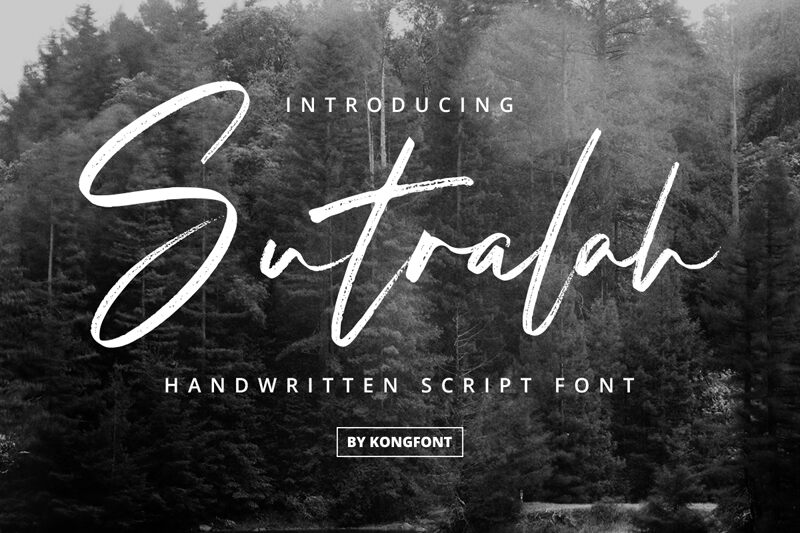
Sutralah
Sutralah font by Kong Font exudes a captivating handwritten, signature style, perfect for adding a personal touch to any project. Its fluid strokes and natural flow make it an excellent choice for elegant branding, sophisticated invitations, or artistic logos. The combination of smooth curves and distinctive flair highlights its unique aesthetic appeal, making Sutralah a versatile and eye-catching option.